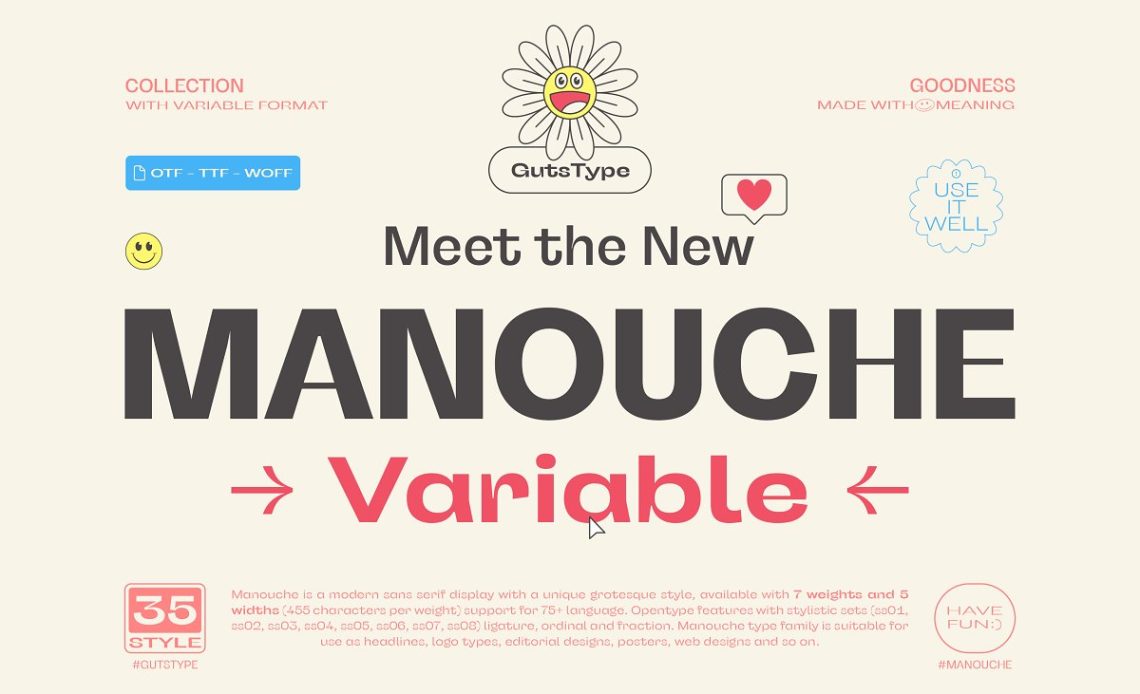
Introducing Manouche Font Family - the ultimate choice for a modern and captivating resume. Created by the renowned Guts Type, this sans serif display font will elevate your resume to new heights.
With its unique grotesque style, Manouche stands out from the crowd and grabs attention instantly. Its versatility is unmatched, offering 7 weights and 5 widths to choose from, allowing you to find the perfect fit for your resume. From Thin to ExtraBold and from Condensed to Expanded, Manouche has it all.
But Manouche is not just limited to resumes. This font family is a perfect companion for all your design needs. Whether it's headlines, logo types, editorial designs, posters, or web designs, Manouche delivers stunning results every time.
Unlock endless creativity with Manouche's OpenType features. Stylistic Sets, ligatures, ordinals, and fractions are just a few of the tools at your disposal. These features add a touch of elegance and sophistication to your typography, making your resume stand out from the competition.
No matter the language, Manouche has you covered. With support for over 75 languages, you can confidently showcase your skills and experiences to a global audience.